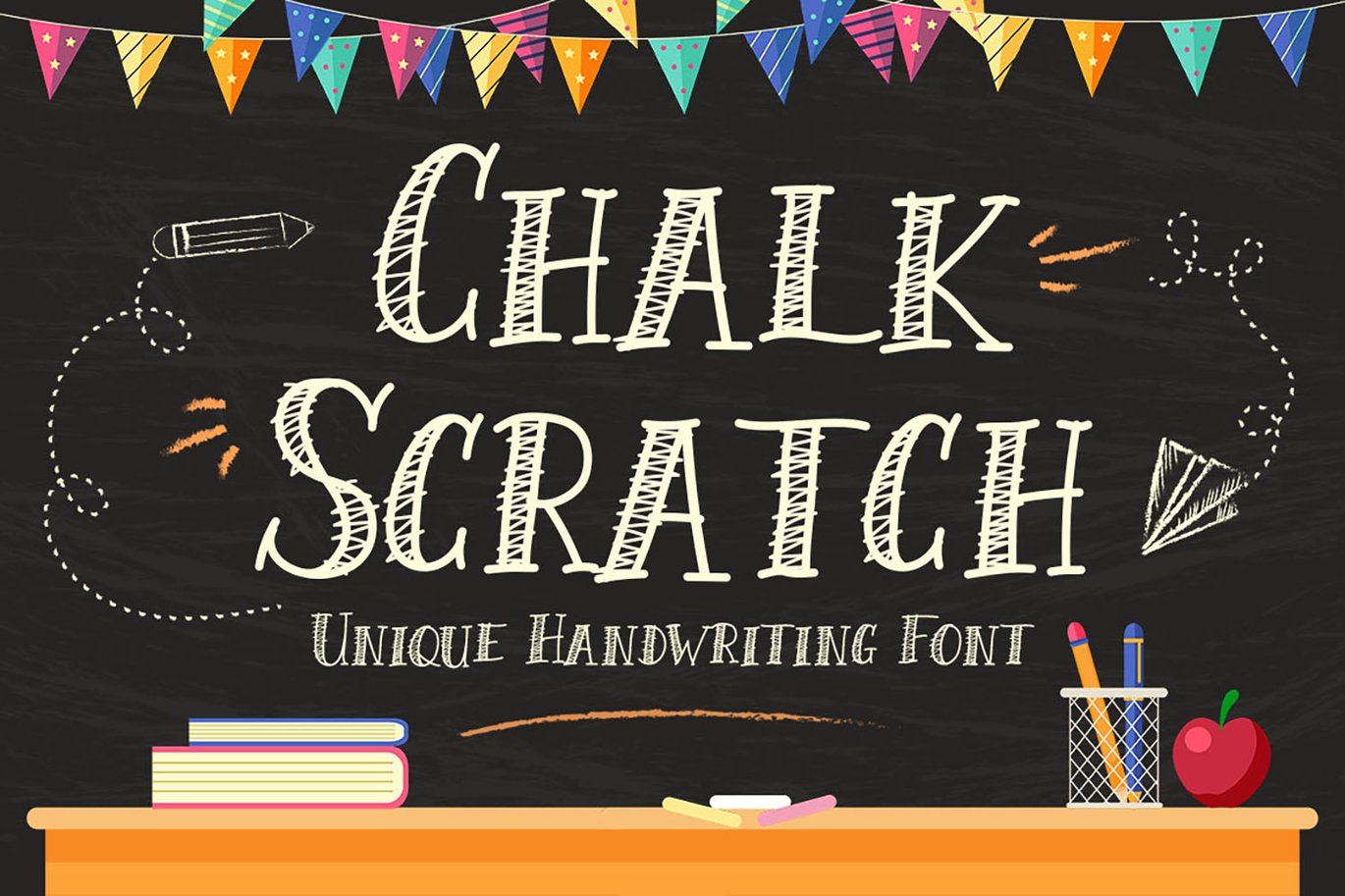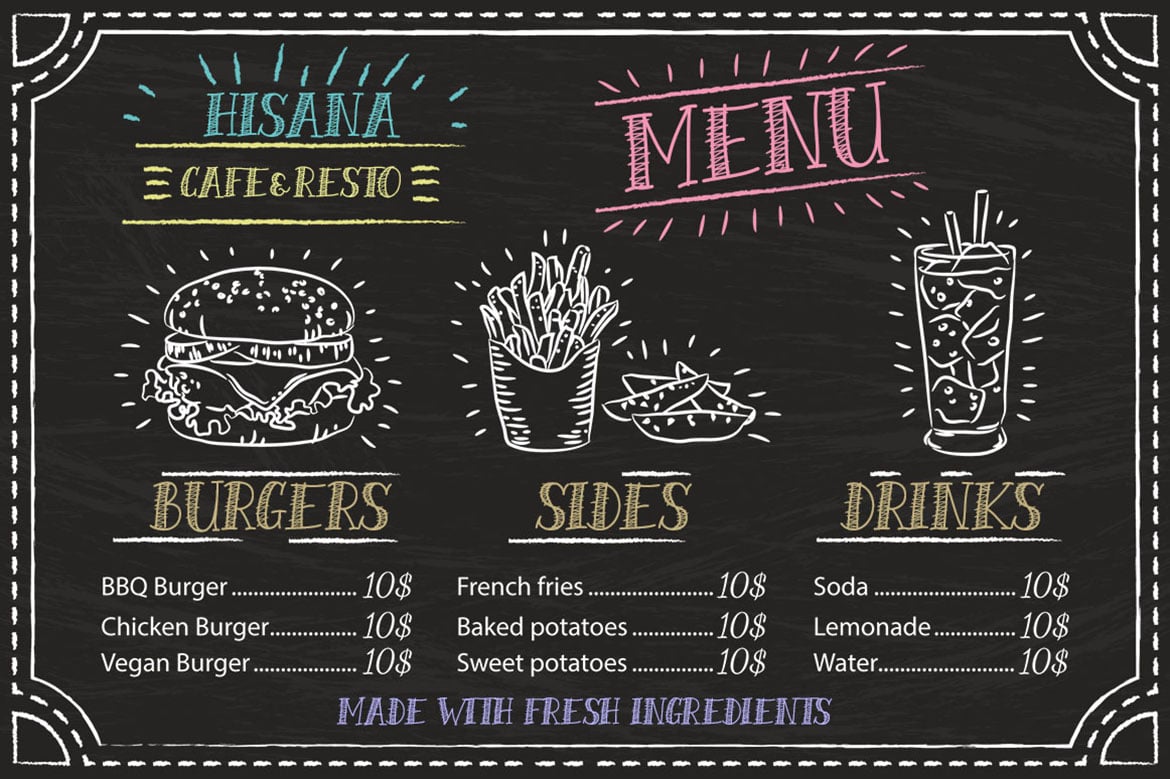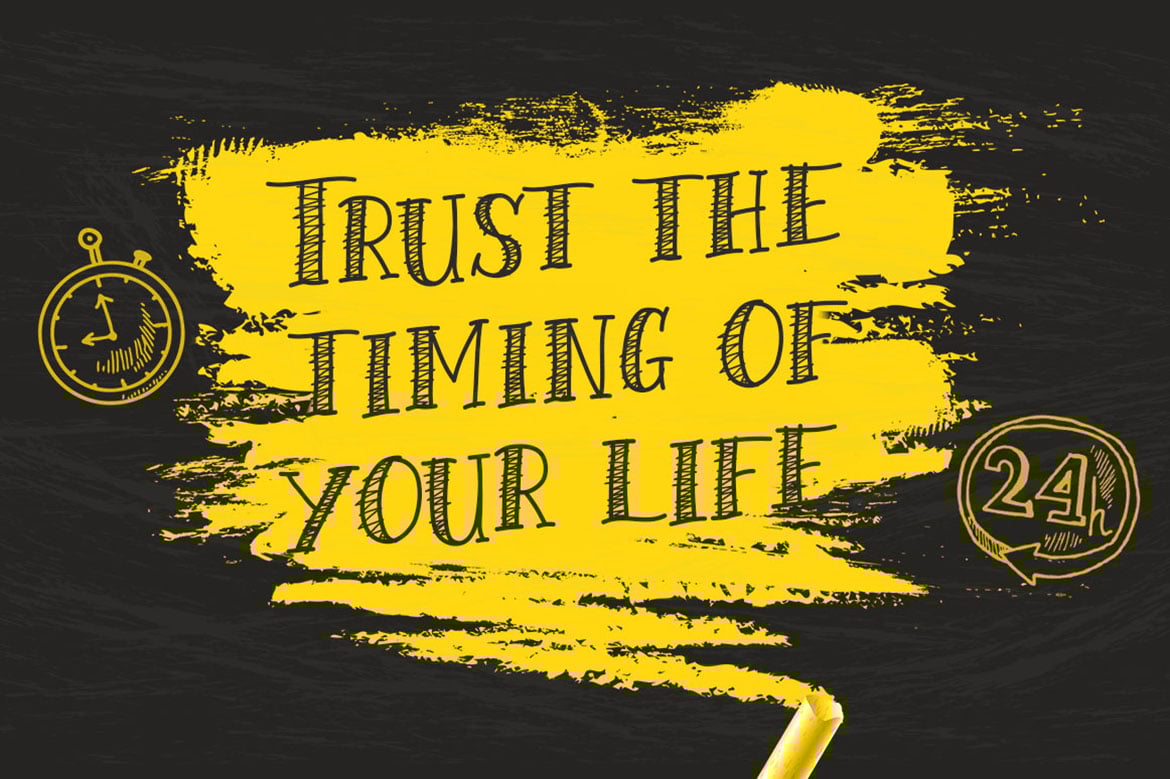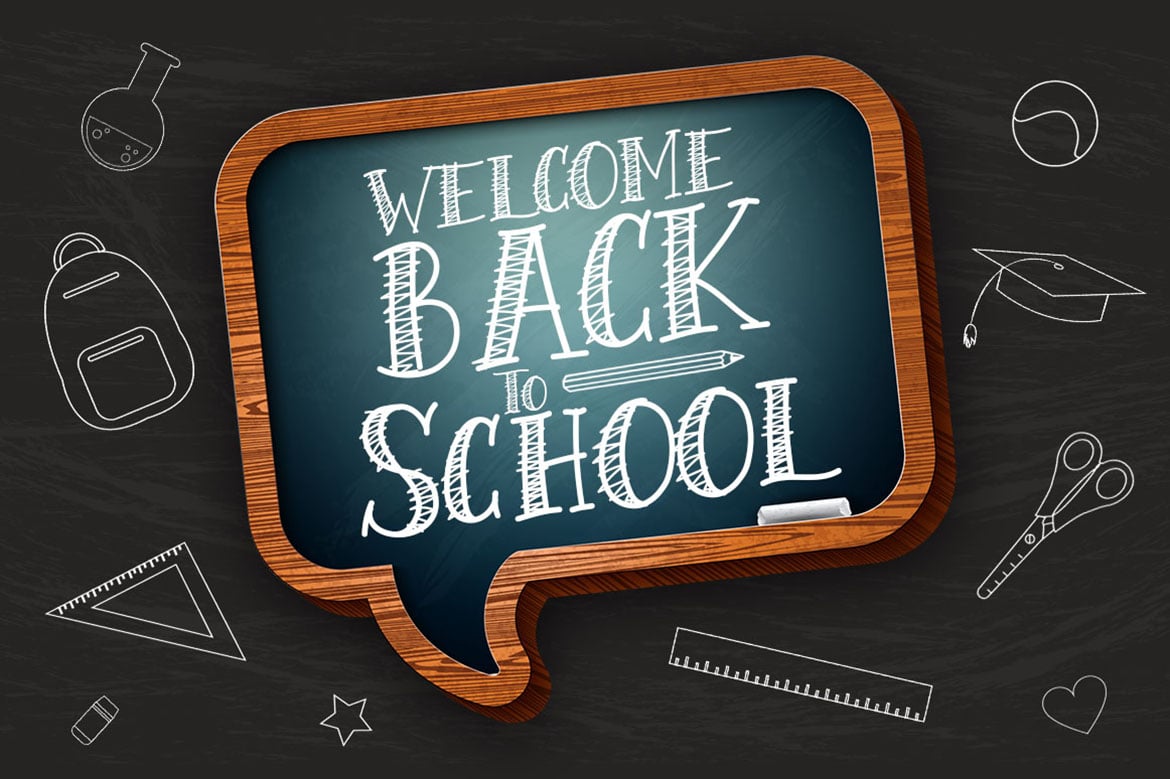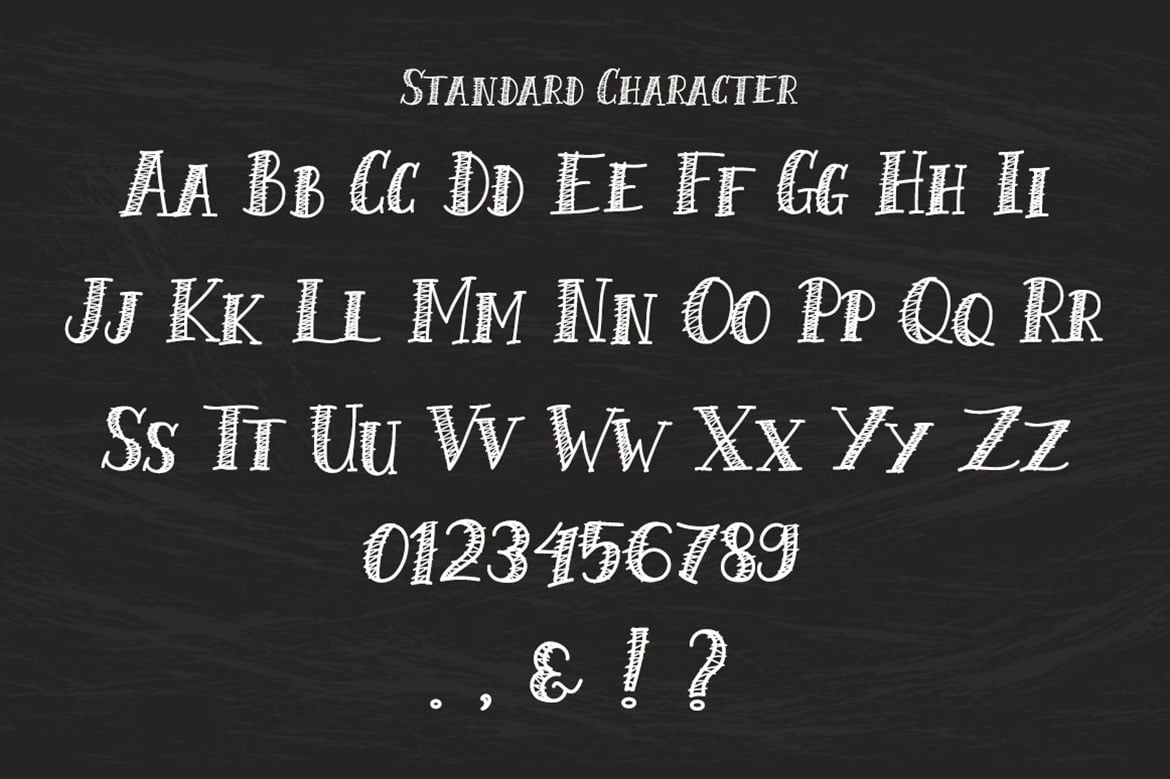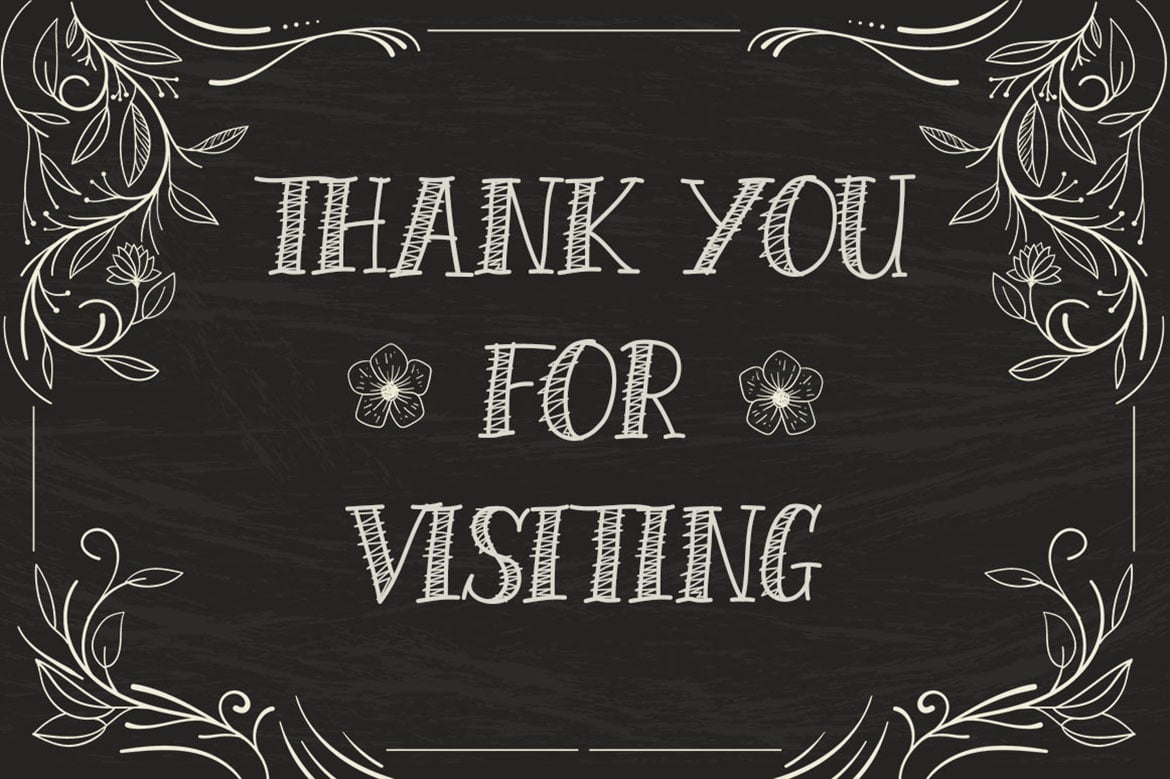
Chalk Scratch Font
Chalk Scratch is a playful display font. Get creative with its childlike playfulness, and use it to brighten up any kids and school project!
This font is suitable to use as a logotype, product designs, label, watermark, social media posts, apparel, invitation, signboard, sports club, motor/car, special events, or anything that needs handwriting taste.